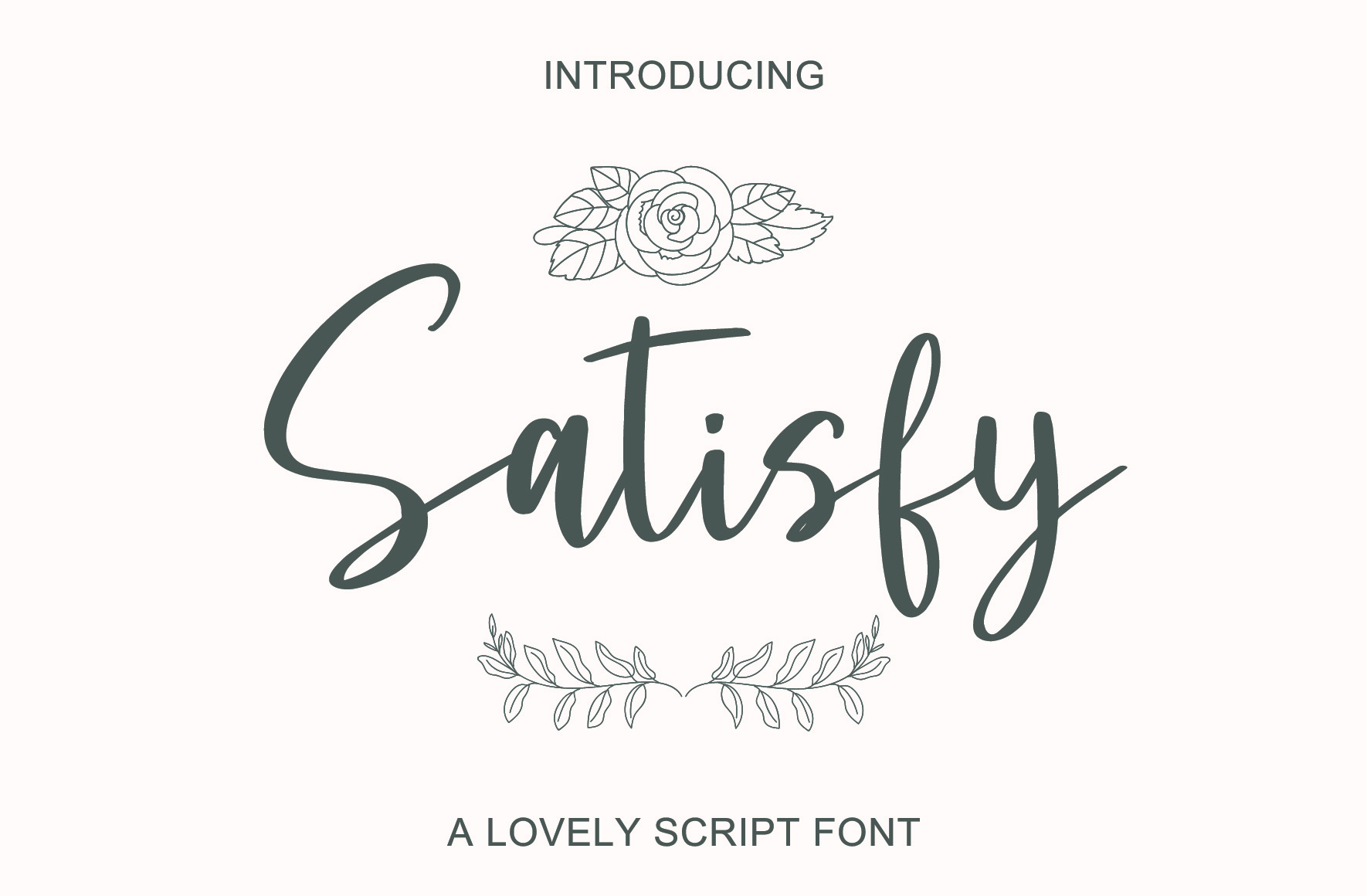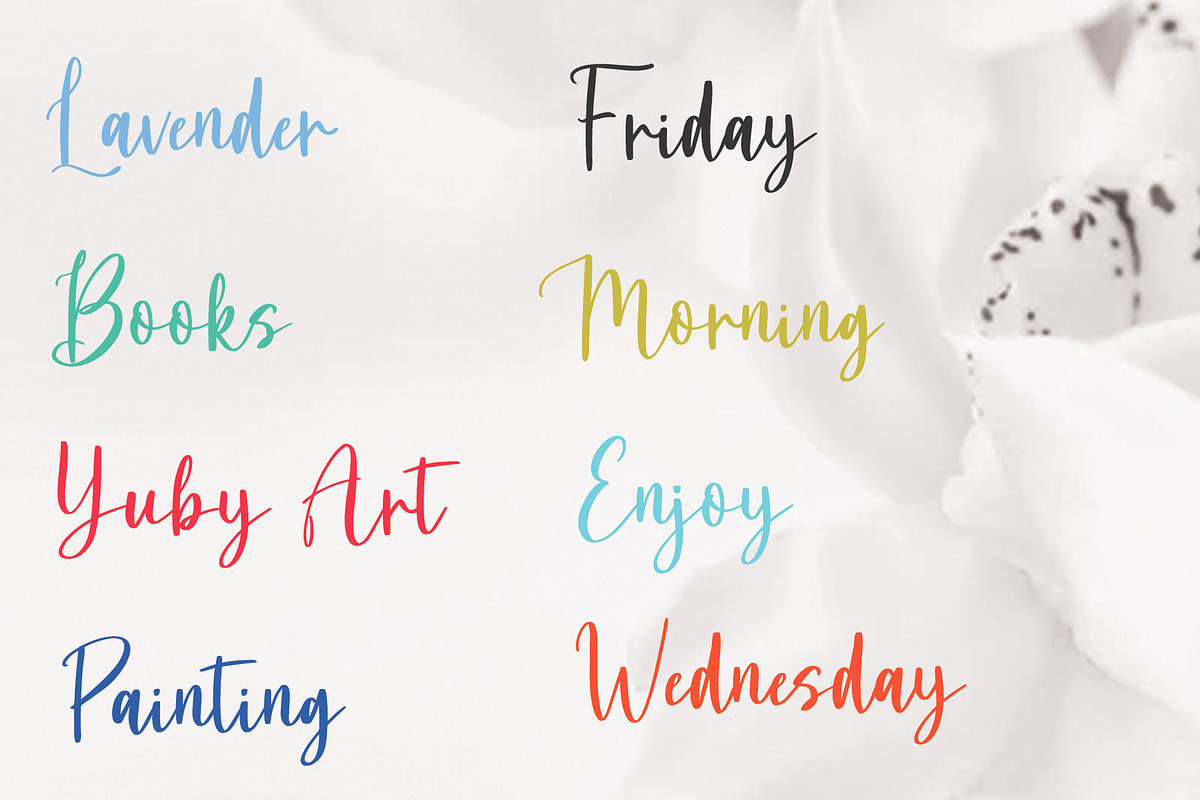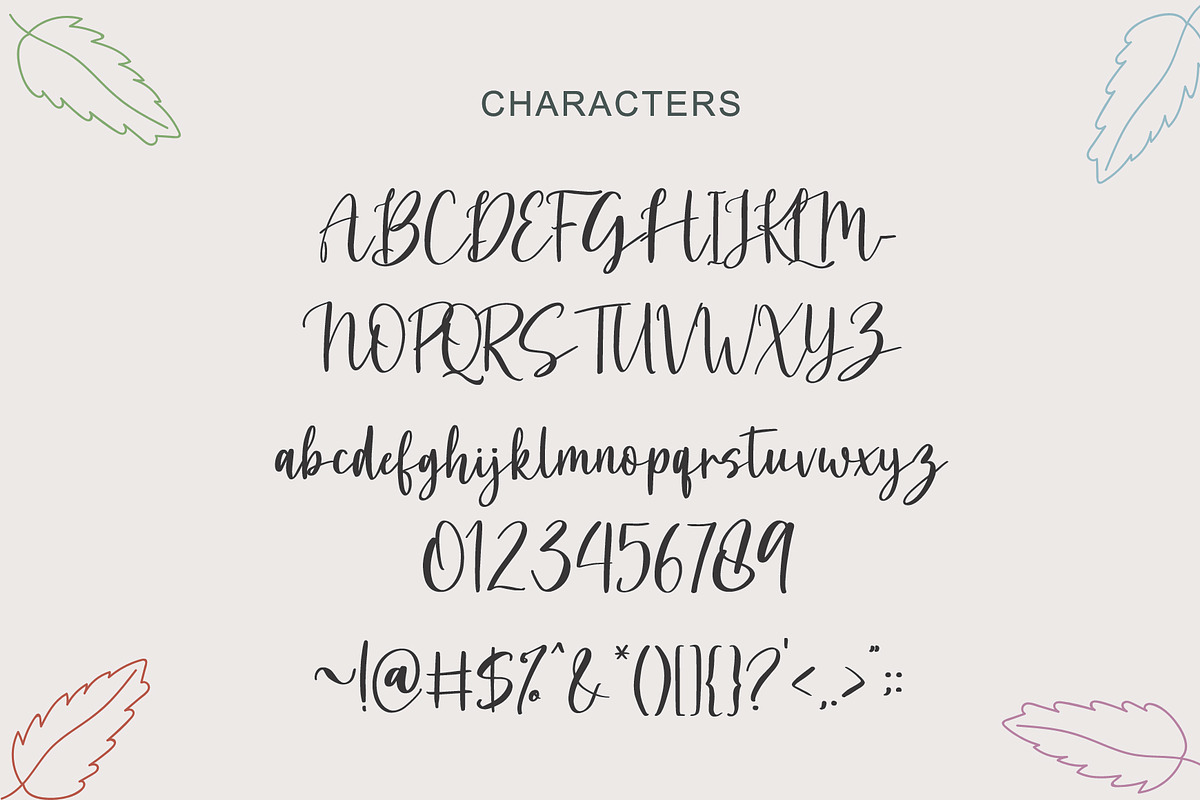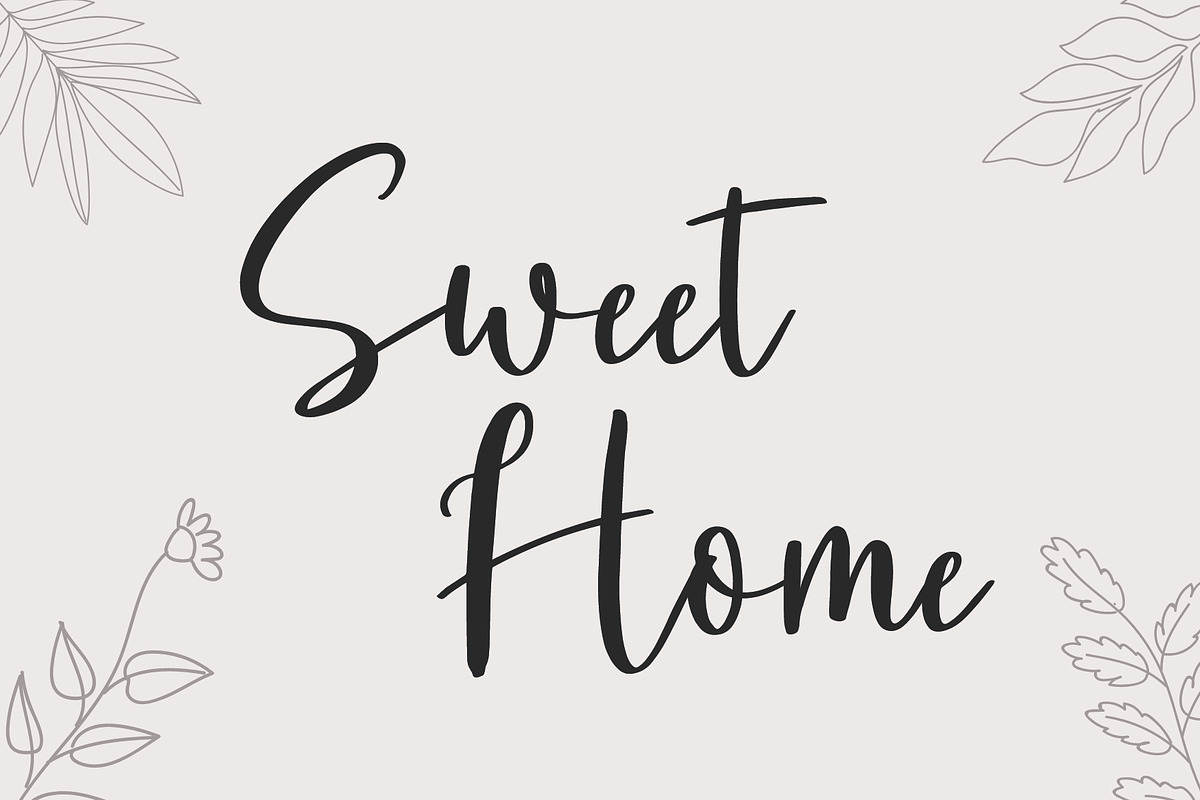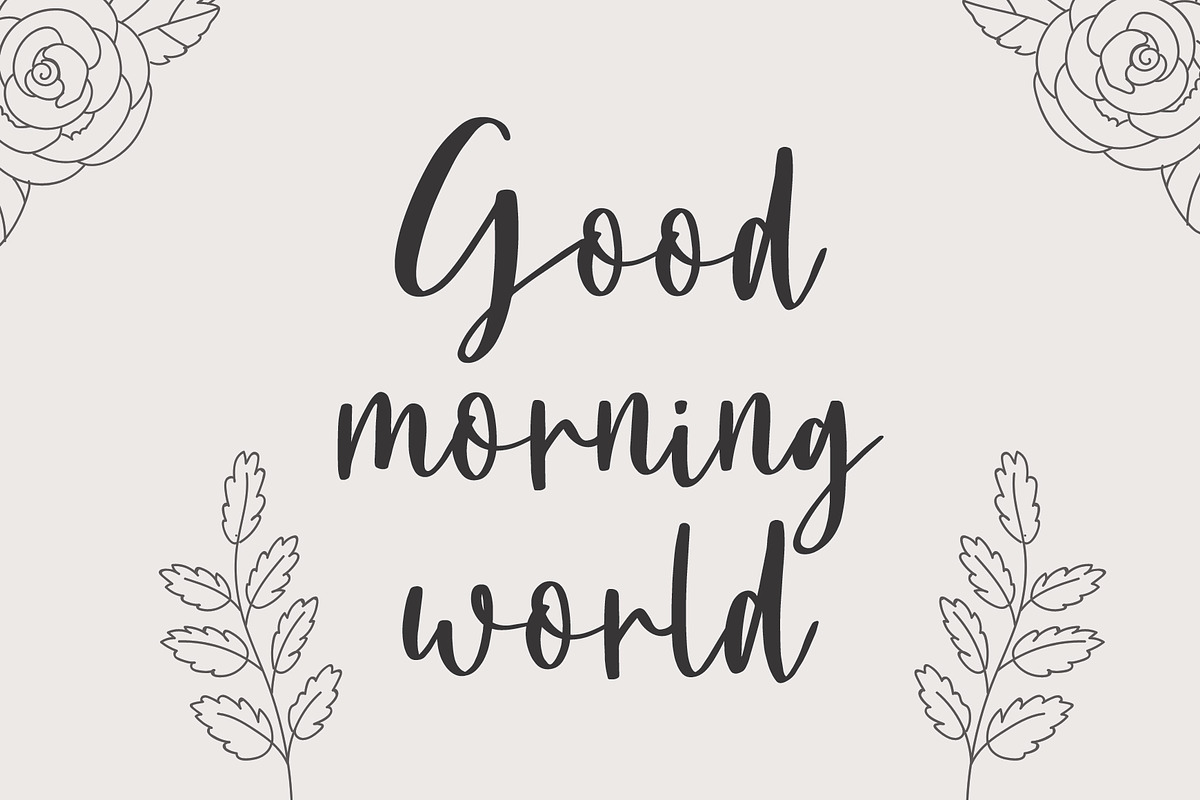
Satisfy | Handwritten Font
Satisfy is a elegant and lovely handwritten script font.
Satisfy can be used for various projects such as stationery invitations, social media, logos, weddings, branding, graphic design with additional addons. and can be combined with various types of serif fonts to enhance the projects you want to work on.
Accent characters are included.